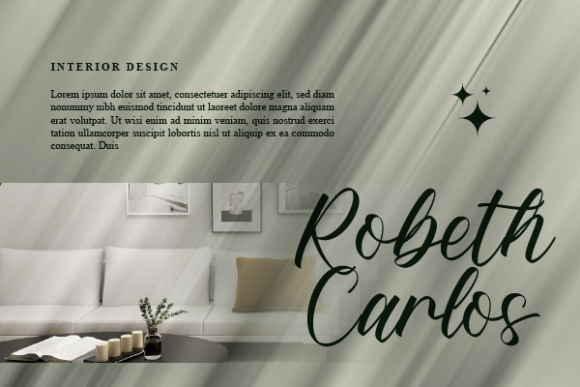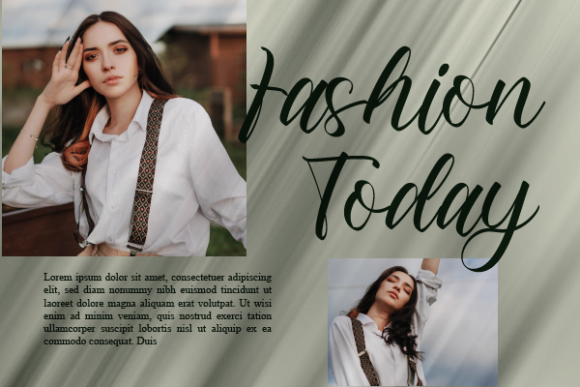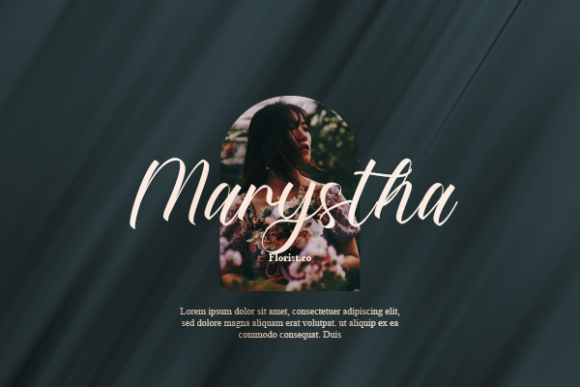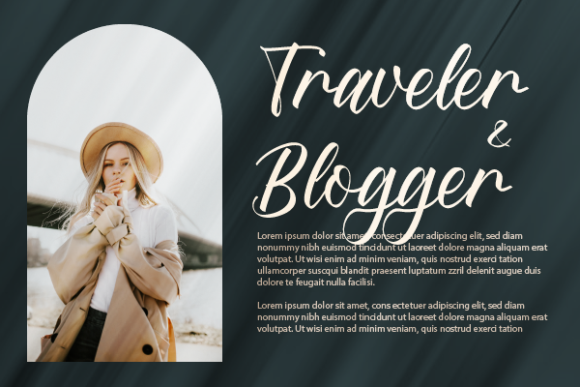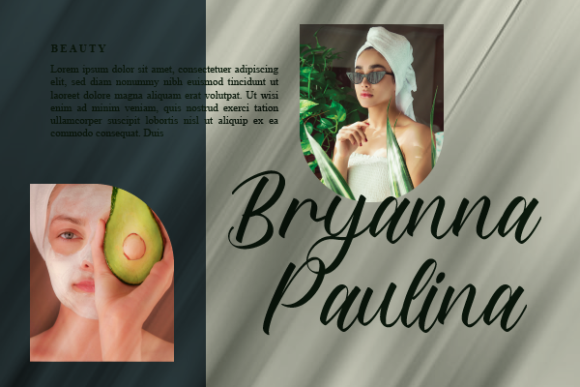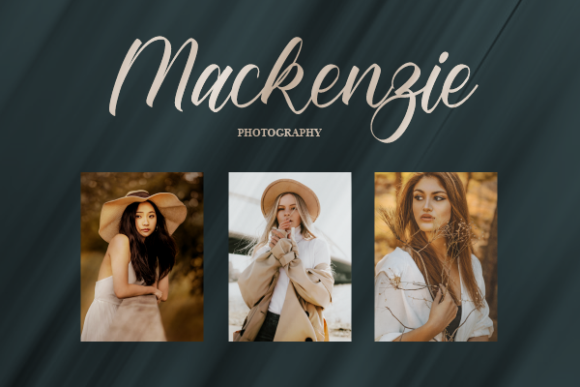
Discover the Charm of Amelia Virginia Font
Have you ever been browsing through a vintage bookstore, flipping through the pages of a classic novel, and suddenly, you’re captivated by the elegant handwriting of the author? That’s the exact feeling you’ll get when you use the Amelia Virginia Font in your next design project.
Amelia Virginia Font is a stylish and dainty script font that’s perfect for any project that requires a touch of elegance and sophistication. Whether you’re creating a logo, branding materials, labels, or photography watermarks, this font is sure to add a beautiful script taste to your work.
For designers, the Amelia Virginia Font is a valuable asset that can elevate their projects to the next level. Its versatility and charm make it a go-to choice for special events, weddings, and other occasions that demand a unique and memorable look.
Amelia Virginia Font Key Features
- Font Family: Amelia Virginia is a script font with a feminine touch, ideal for wedding invitations, greeting cards, and other creative projects.
- Unique Characteristics: Amelia Virginia features flowing connections, elegant flair, and a touch of whimsy, making it perfect for adding a romantic or vintage feel to designs.
Amelia Virginia Font Review
As a designer, I was excited to try out the Amelia Virginia Font. Upon initial inspection, I found that it has a unique and elegant aesthetic that could add a touch of sophistication to any design project. ✨ The font’s curvaceous lines and subtle flourishes give it a classic feel that’s reminiscent of traditional script fonts.
One of the things that I appreciate about Amelia Virginia is its versatility. It can be used for a wide range of applications, from formal invitations to casual greeting cards. The font’s legibility is also impressive, making it easy to read even in smaller font sizes.
- ⚠️ Limited language support: Amelia Virginia Font may not support all languages, which could be a limitation for designers working on international projects.
- ⚠️ Limited font sizes: While the font is legible in smaller sizes, it may not be ideal for very large font sizes, as it can become distorted.
- ⚠️ Limited customization options: Amelia Virginia Font may not offer as many customization options as some other fonts, which could limit its flexibility.
Overall, I’m impressed with the Amelia Virginia Font’s unique style and versatility. While it may have some limitations, it’s a great addition to any designer’s toolkit. I would definitely consider using it for future projects, especially for designs that require a touch of elegance and sophistication.
Amelia Virginia Font is ideal for:
- Vintage-inspired designs
- Formal events and announcements
For optimal results, use Amelia Virginia Font in conjunction with high-quality images and elegant design elements.
For optimal readability, we recommend using Amelia Virginia at font sizes between 12pt and 18pt. This range provides a clear balance between legibility and visual impact.